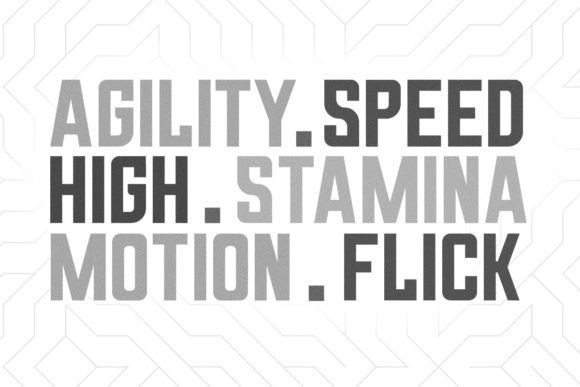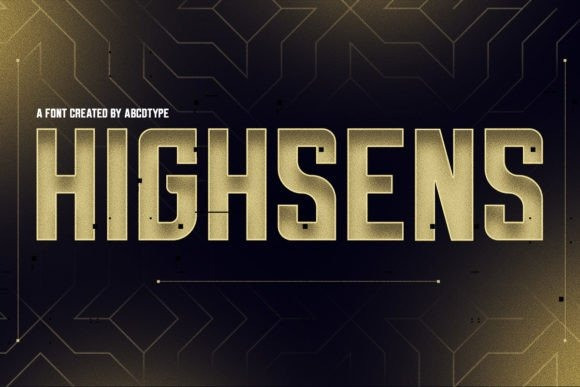
Highsens Font
Highsens Sans Serif Font is a standout Sans Serif font. This love font works great for headers, tournaments, social media esports, and any kind of sports design.